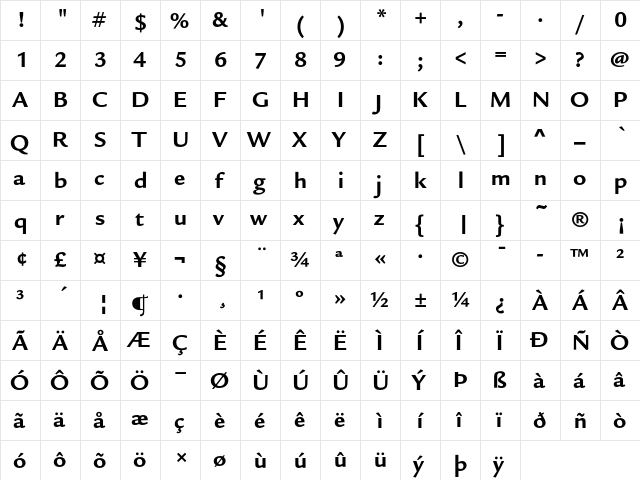
Legacy Sans ITC Bold
Design Context for Legacy Sans ITC Typeface
Legacy Sans ITC is a composed and adaptable typeface that performs quietly and consistently across a wide range of design contexts. Its bold stroke weight gives it real presence on the page.